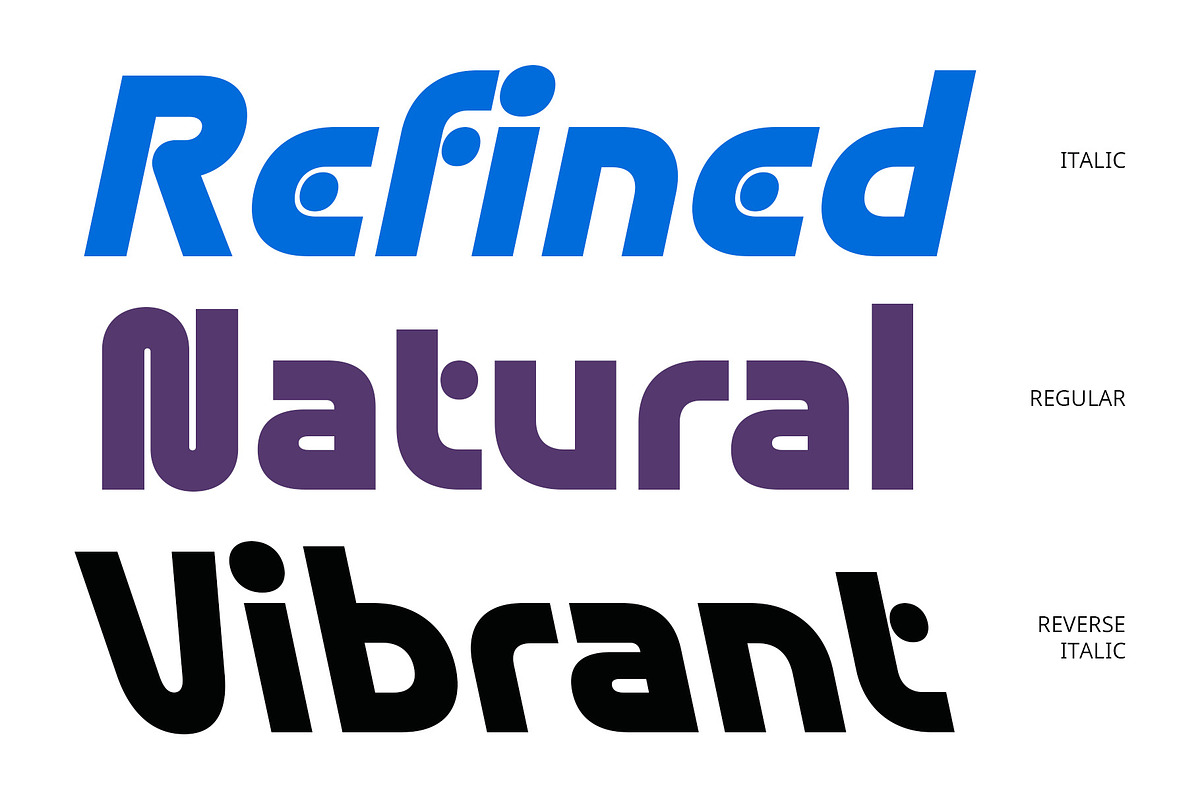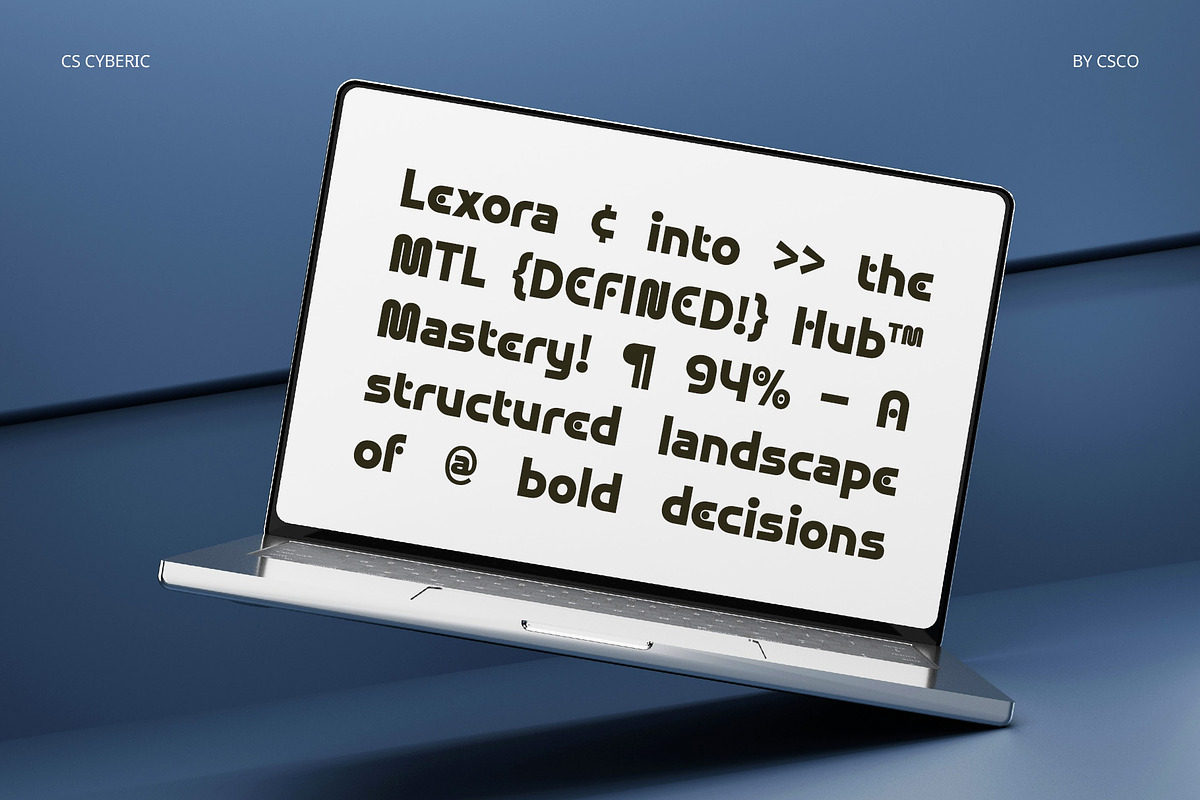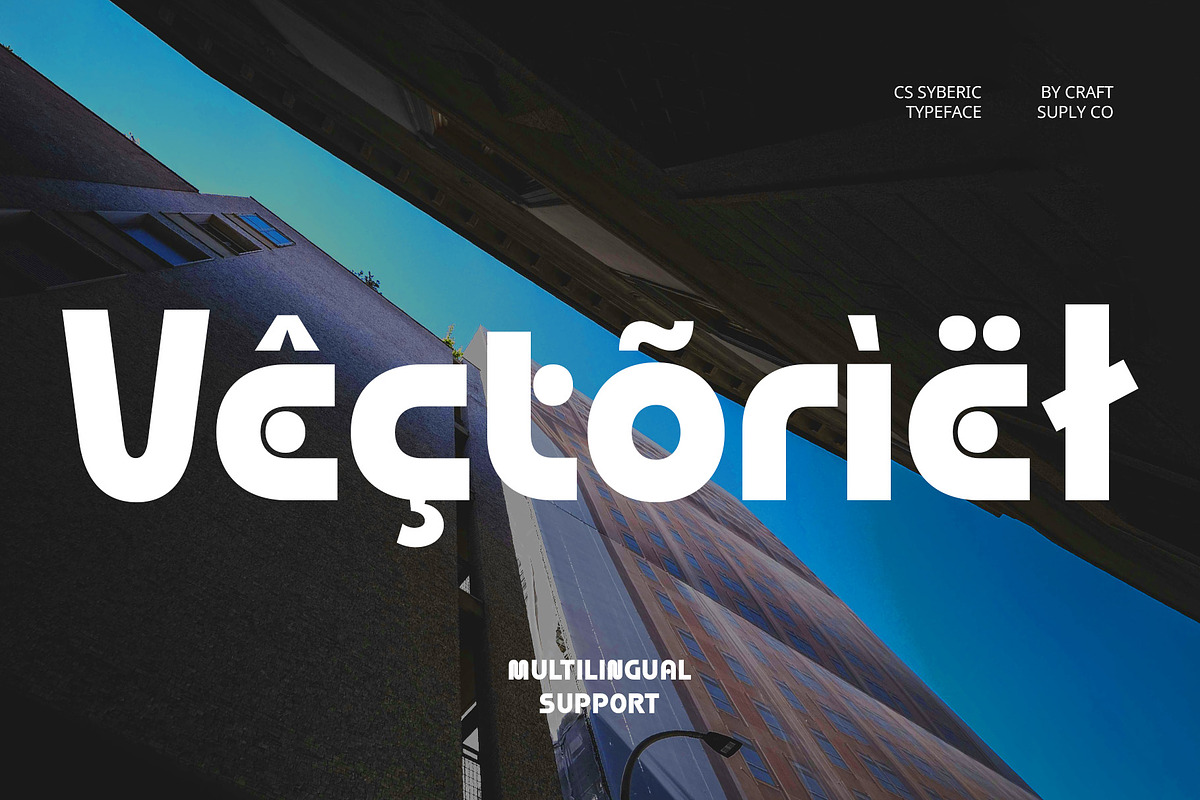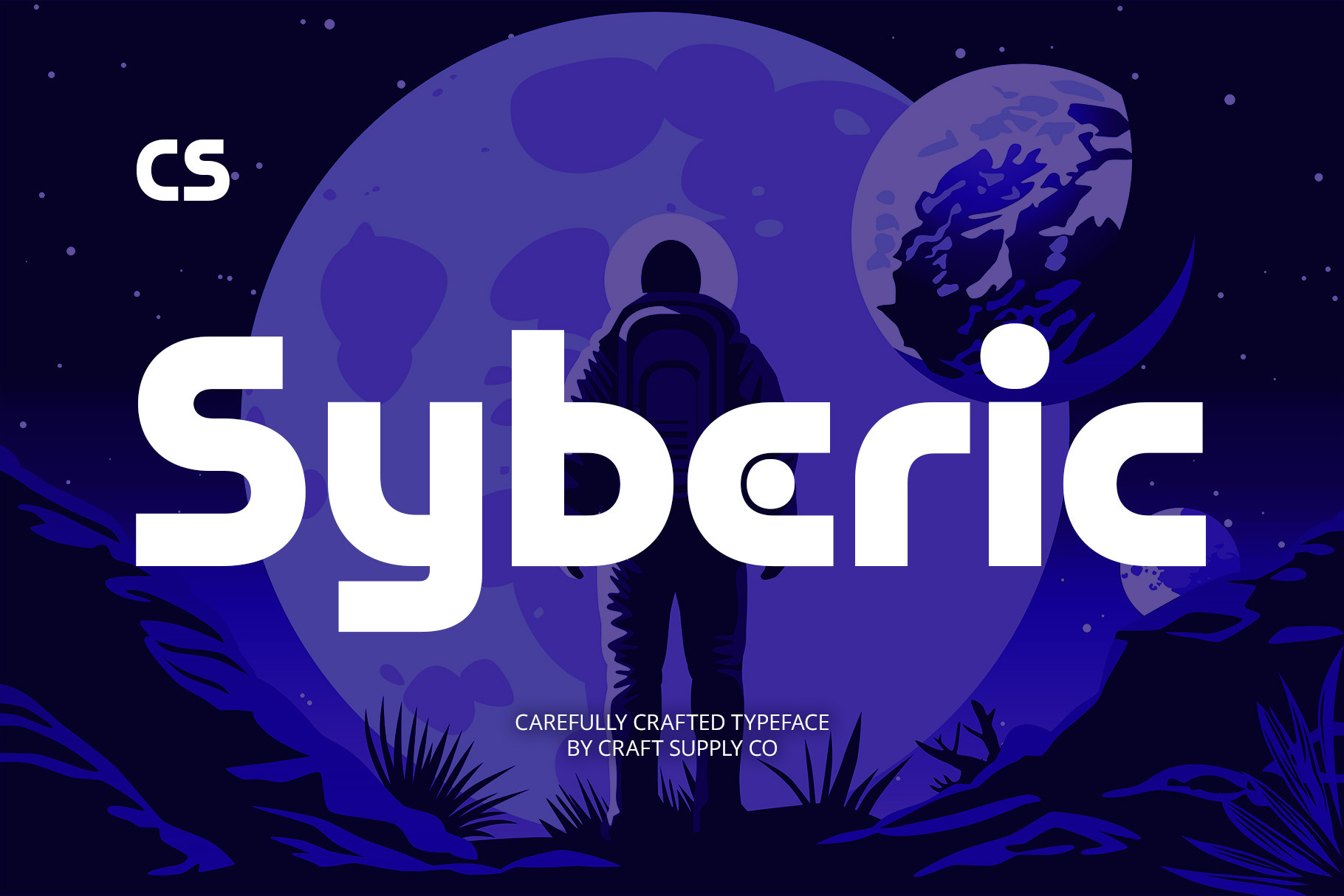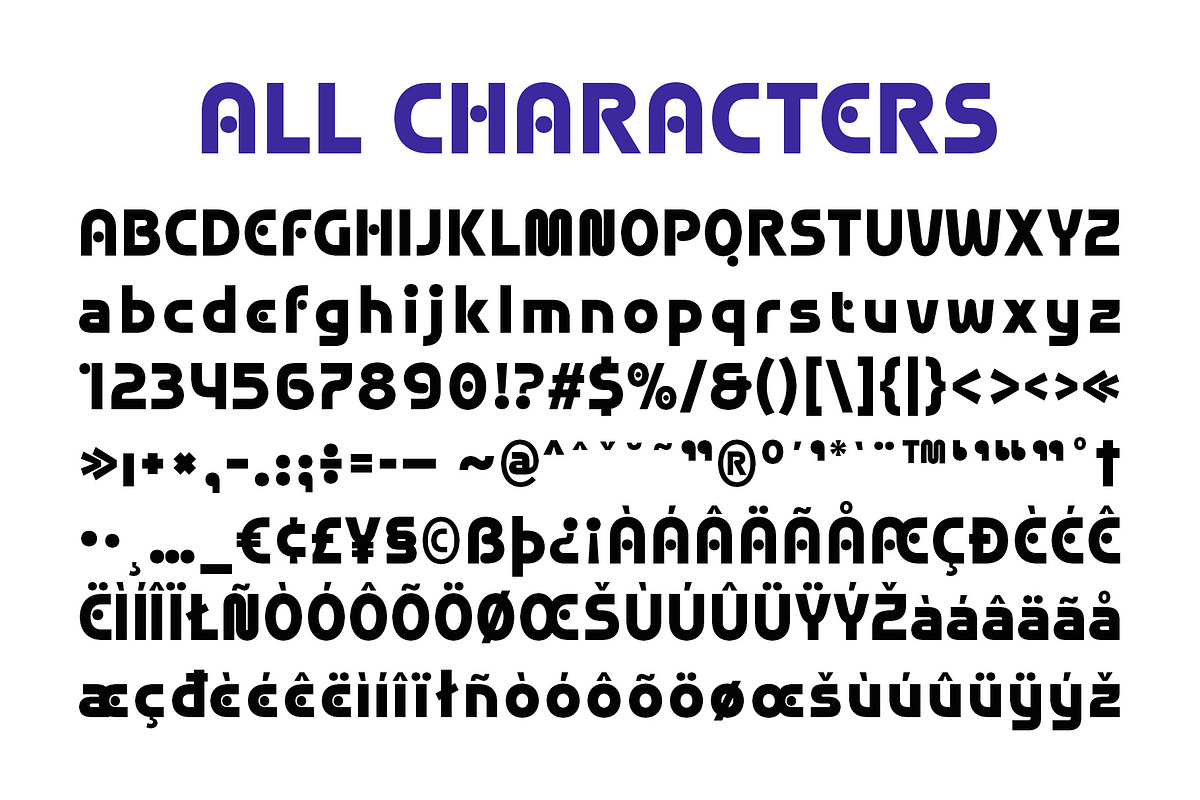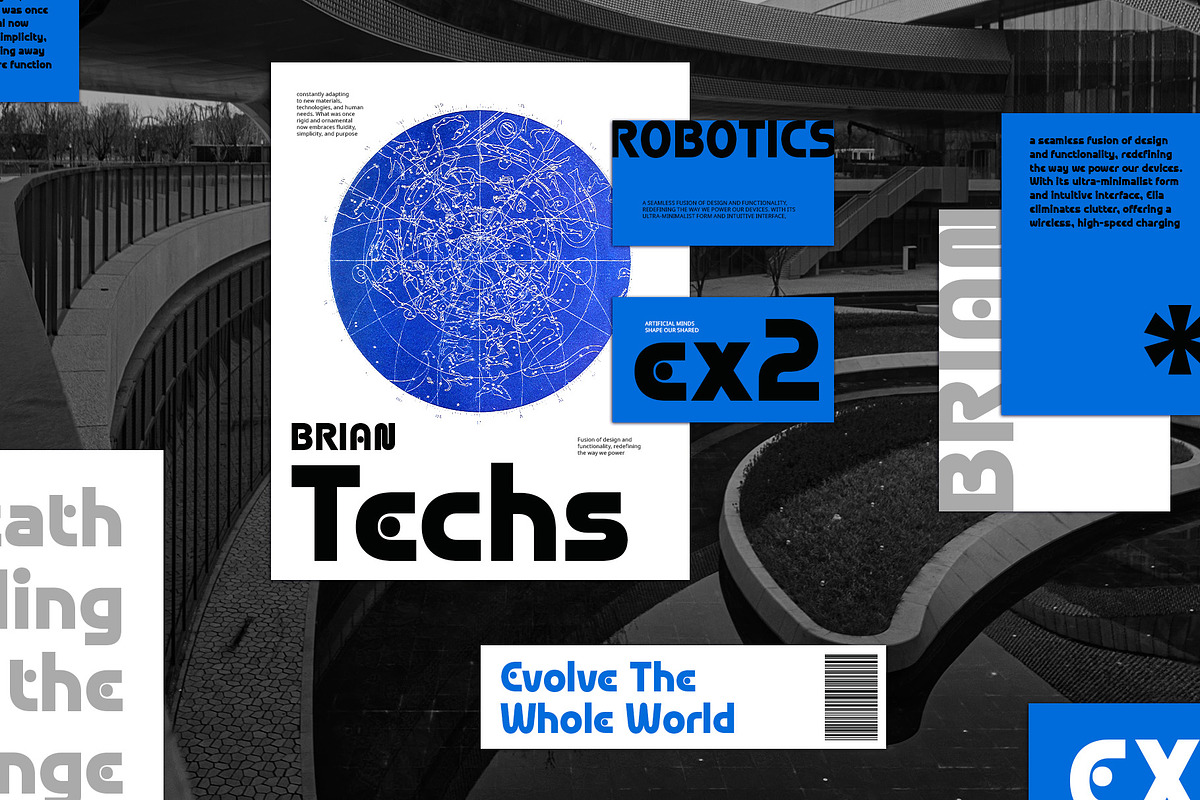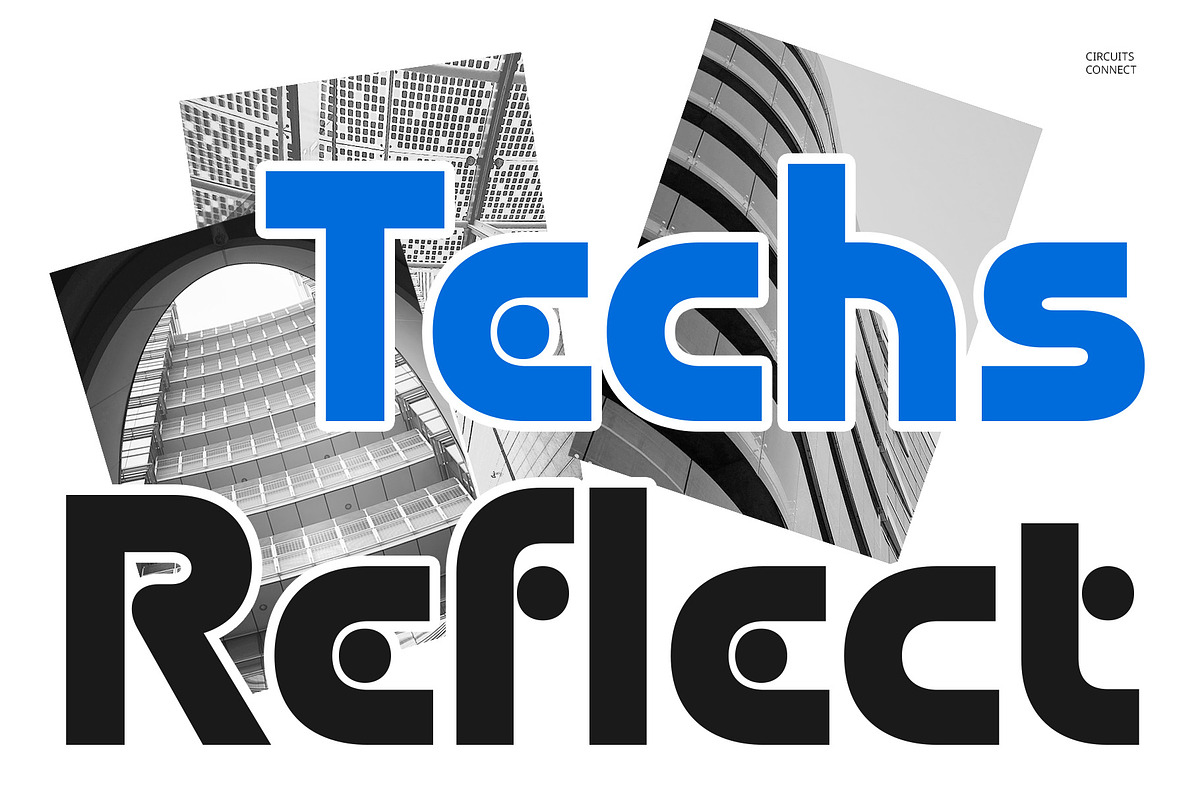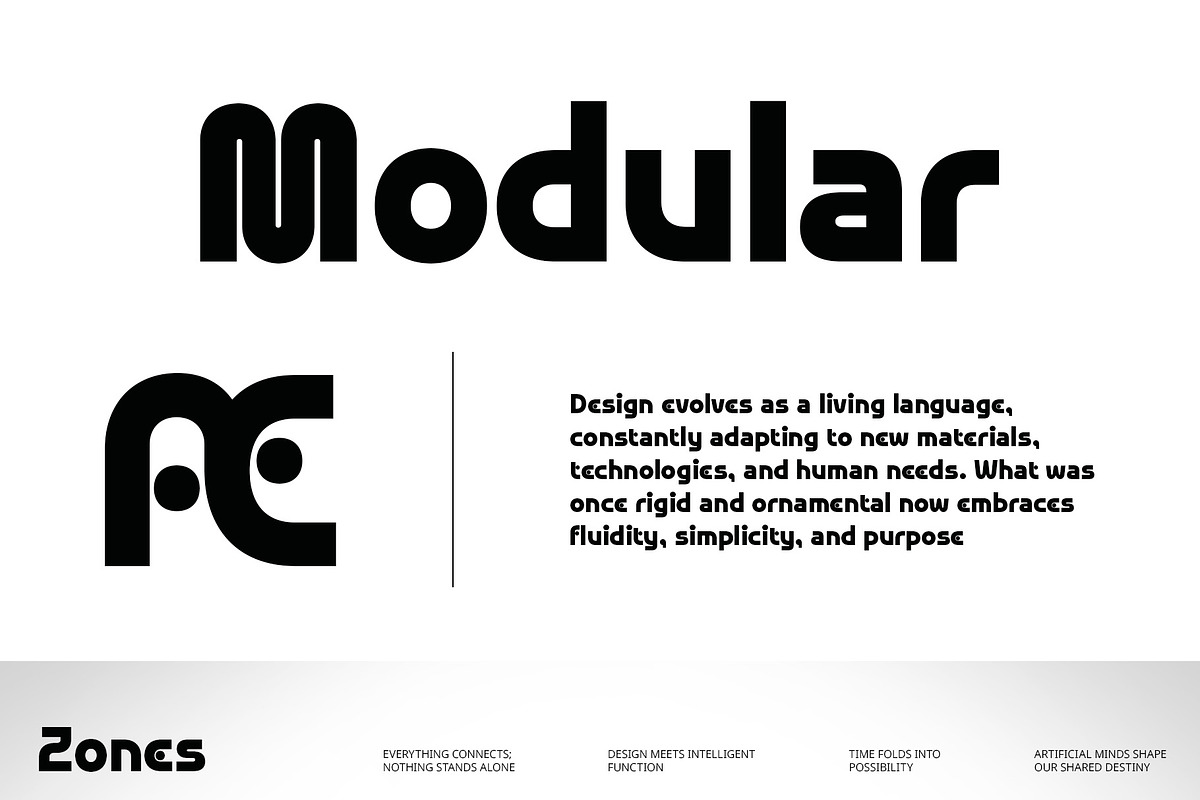
CS Syberic – Techno Font
CS Syberic – Techno Font: Bold, Geometric, and Futuristic Typography
Sharp Lines and Precise Forms CS Syberic – Techno Font features bold, geometric shapes with sharp lines and meticulously crafted forms. Its precise, modern design exudes a sense of strength and assertiveness, perfect for projects that demand a bold, cutting-edge aesthetic. The clean, angular characters reflect a futuristic vibe, ensuring that your design stands out in any tech-related context.
Dynamic and Forward-Looking Design With its focus on dynamic shapes and a tech-forward style, CS Syberic is a display sans serif font designed to make an impact. Its modern, futuristic look suggests innovation and progress, making it ideal for branding, technology-related projects, and designs that aim to convey a sense of momentum and evolution.
Perfect for Technology and Innovative Branding Whether you’re creating designs for tech startups, futuristic products, or innovative branding, CS Syberic Font delivers the strength and precision you need. Its bold appearance is perfect for making a statement in digital, technological, or corporate environments where a strong, modern presence is essential.
Strong, Assertive, and Future-Ready CS Syberic Font is built for projects that require a strong, bold appearance. It’s perfect for making an assertive statement in logos, websites, and advertisements that focus on technology, modernity, and progress. With its futuristic character shapes, this font ensures your designs are ready to face the future.